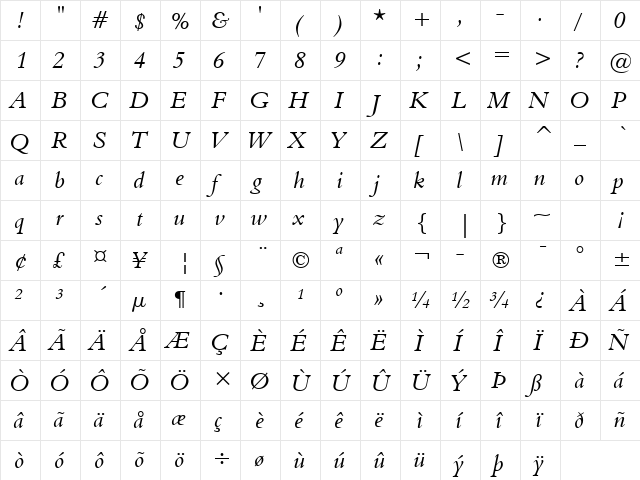
Aldine401 BT Italic
Design Context for Aldine401 BT Typeface
Aldine401 BT is a composed and adaptable typeface that performs quietly and consistently across a wide range of design contexts. The slanted form adds forward momentum and visual energy.
Pro Tip: Try Aldine401 BT for annotation and caption copy alongside an upright companion — the contrast in angle creates a dynamic but ordered typographic system.